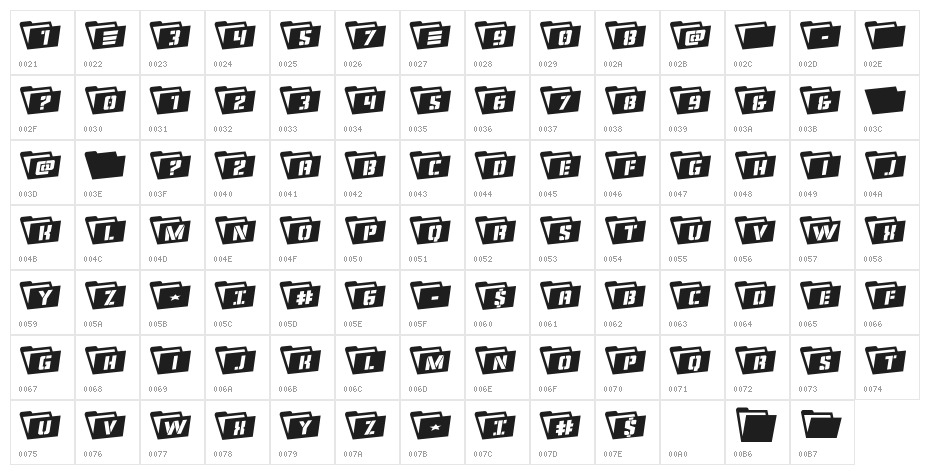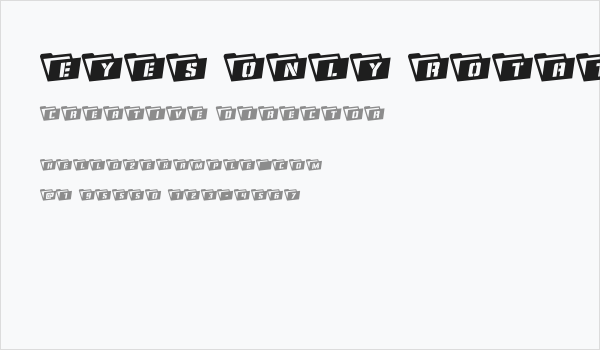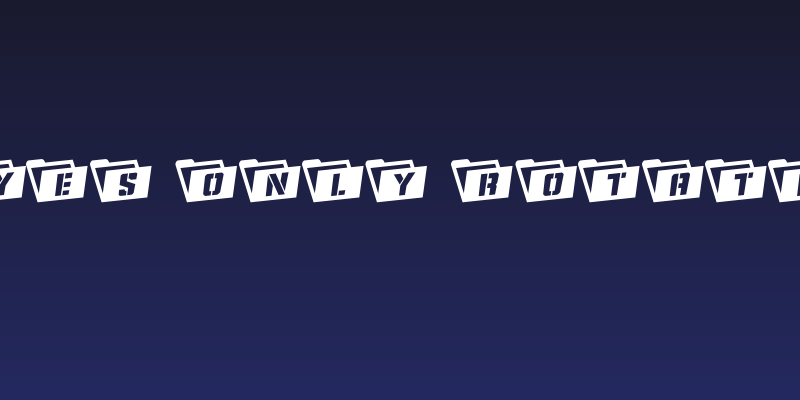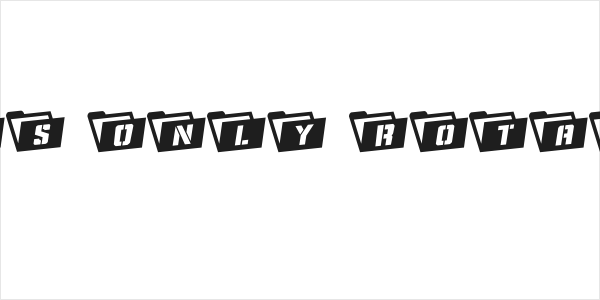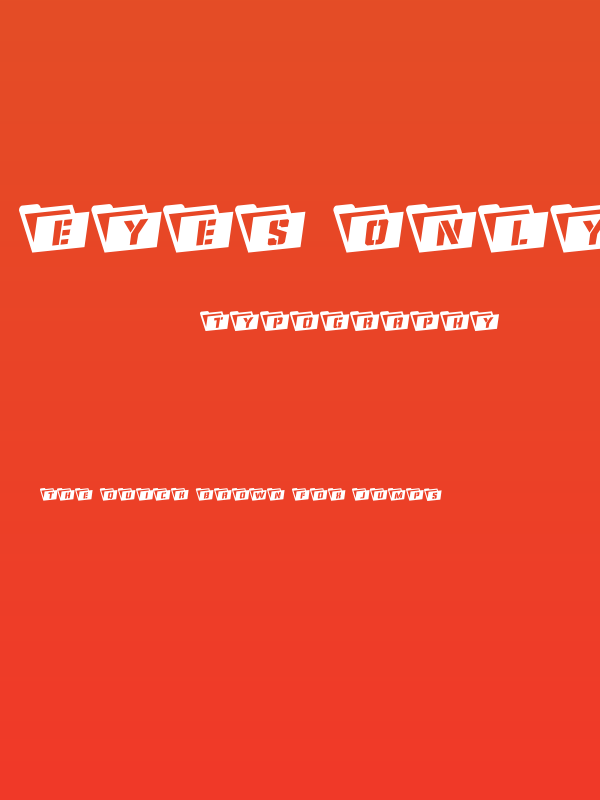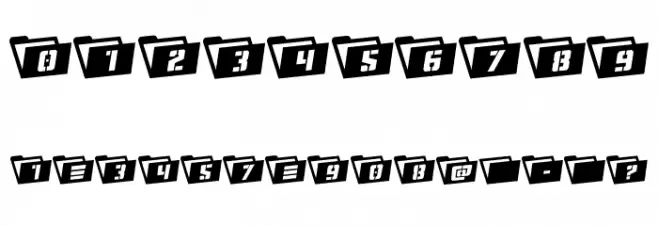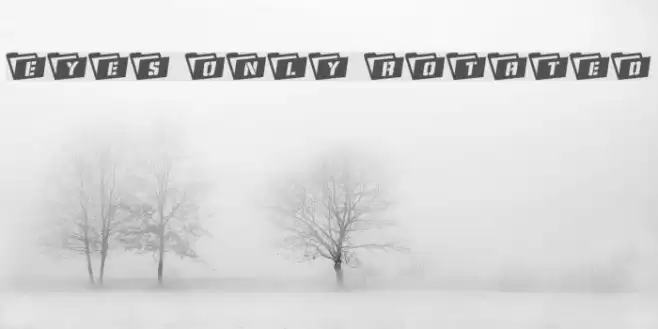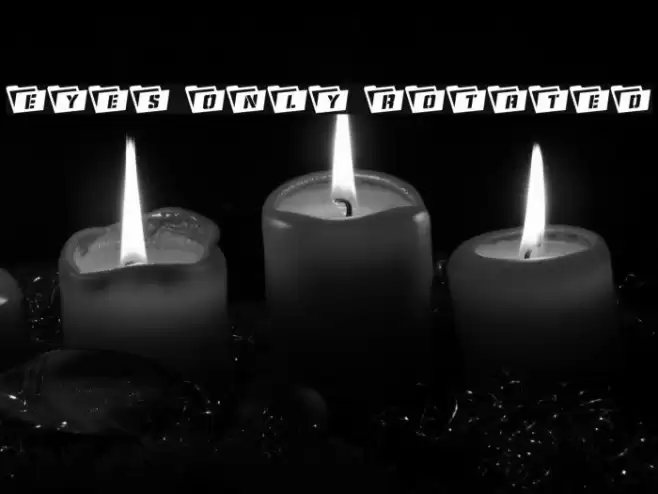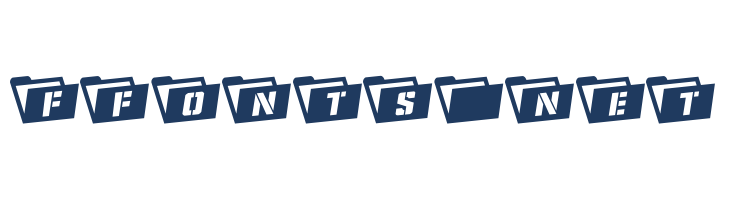
Eyes Only Rotated Font
Eyes Only Rotated Description
This font features a bold, three-dimensional design with each character appearing as if it is emerging from a folder or tab. The letters and numbers are set against a solid black background, giving them a striking and impactful appearance. The style is distinctly modern and geometric, with sharp angles and clean lines that create a sense of depth and movement. The uppercase and lowercase letters maintain a consistent style, while the numbers and special characters follow the same design principles, ensuring uniformity across all glyphs. This font is ideal for projects that require a bold statement or a futuristic aesthetic.
| Proposed Projects | Ideal for branding, posters, video game titles, and any project requiring a futuristic or impactful visual style. |